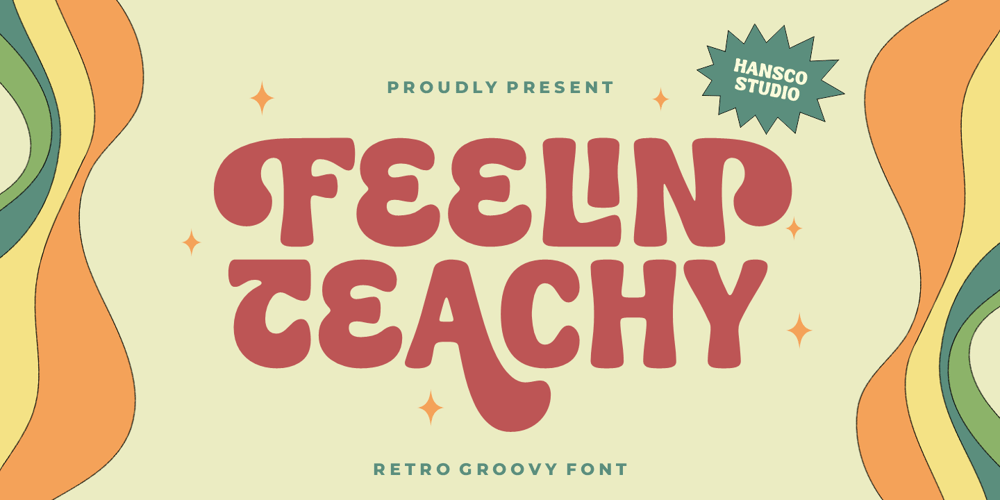
Feelin Teachy Font Family was designed by Burhan Afif and published by HansCo. Feelin Teachy contains 1 styles and family package options. Feelin Teachy is a serif typeface with vintage and retro look!. Equipped with all complete characters ranging from uppercase letters, lowercase letters, numbers, punctuation marks and multi-lingual support, this font is ready to be used in any project. Very suitable for Logotype, Stickers, Packaging design, Cricut Project, Headlines, Brand identity, T shirt or Apparel industry, Posters, Magazines, Books, YouTube, Instagram, Websites, Canva, Corjl or any of your creative design projects.How to access alternate? : https://hanscostudio.com/tutorial/Enjoy!